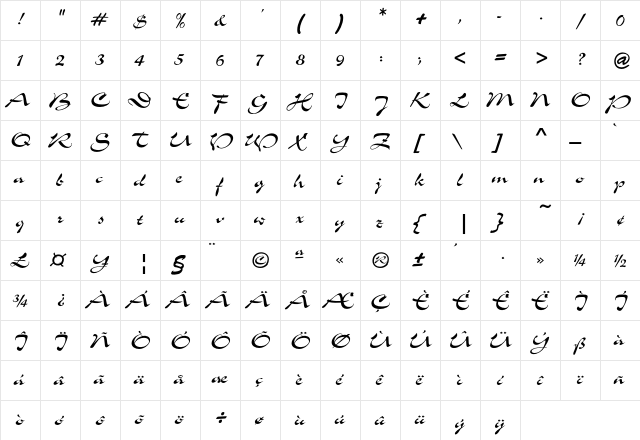
KeyWest Regular
Design Context for KeyWest Typeface
KeyWest is a composed and adaptable typeface that performs quietly and consistently across a wide range of design contexts.